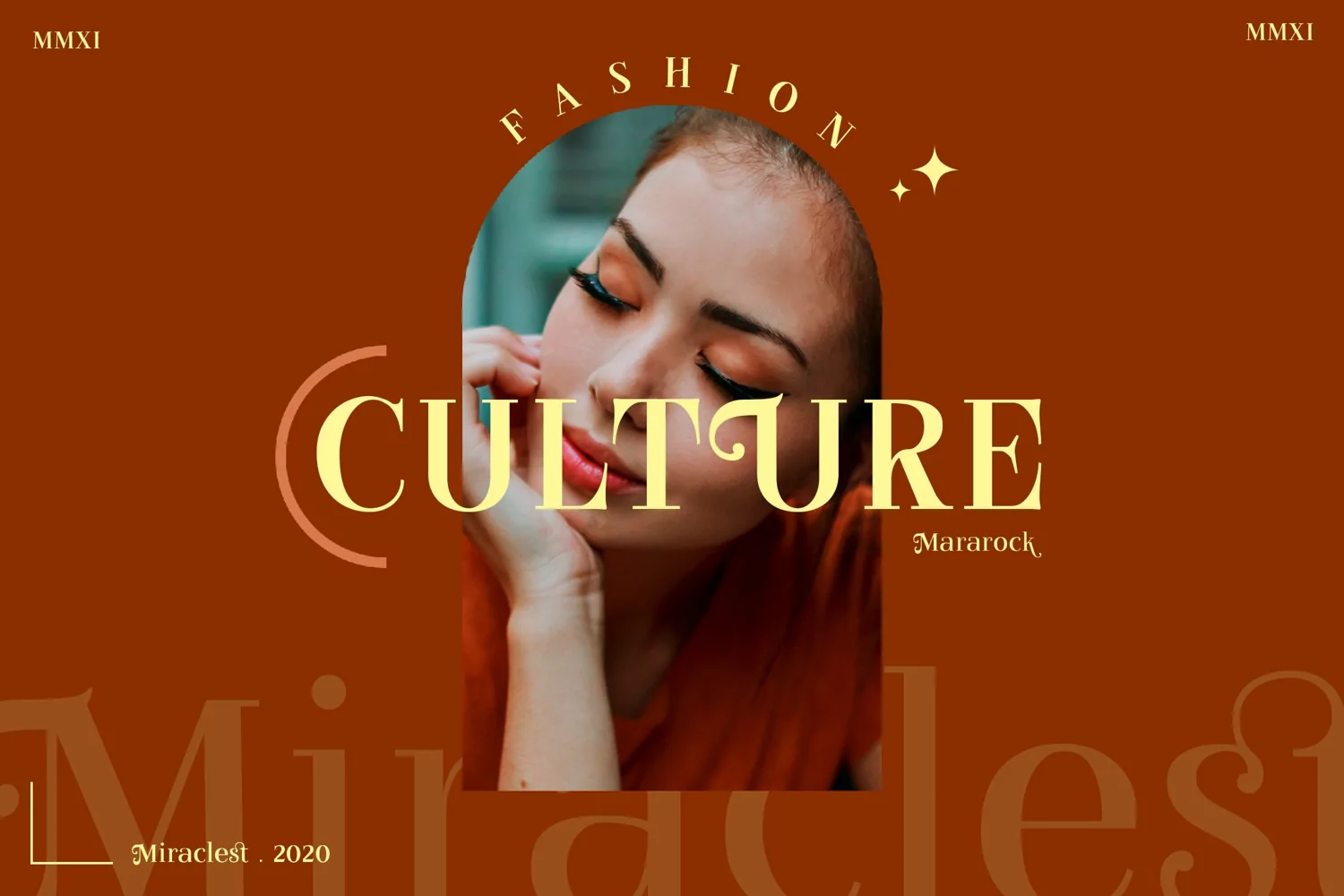
Miraclest Beautiful Fancy Serif - Elegant Luxury serif font. It comes with ligatures and alternates. You can combine it to make a perfect beautiful logotype and typhography design.
Miraclest Serif font is perfect for your up coming projects. Such as luxury logo and branding, classy editorial design, magazine, fashion promotional, boutique / dress fashion store branding, stationery design, beauty salon, blog design, modern advertising design, card invitation, royal and glamour jewelry, art quote, home decor, book/cover title, special events and any more.